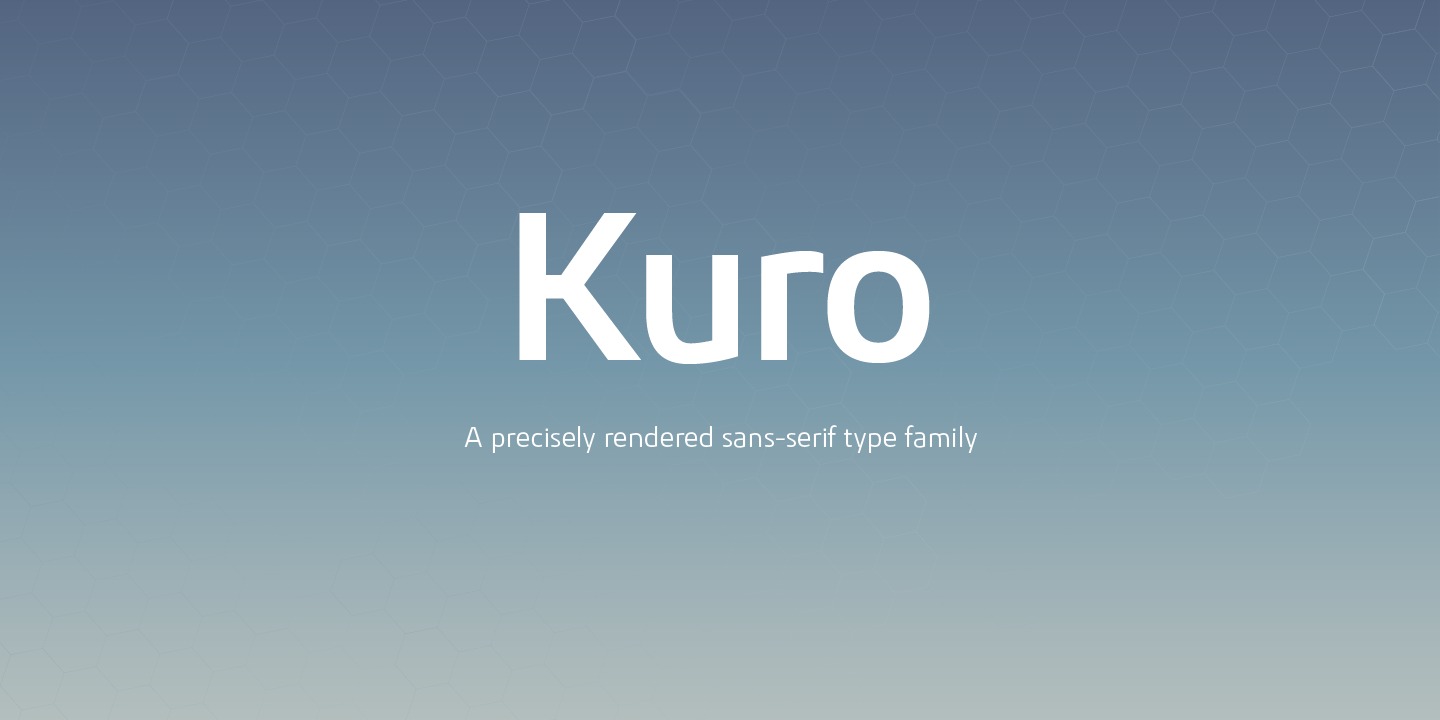
Kuro Font Family
Kuro Font Family is a distinctive and expressive font crafted to bring personality, structure, and creative energy into your projects. Kuro is a precisely rendered sans-serif type family. Modern geometric forms combined with subtle detailing create a charming, straightforward and versatile design. The lighter weights bring a contemporary touch to body copy while the bold weights add the strength of character to branding, identity and packaging. Details include eight weights, over 450 characters, manually edited kerning and Opentype features.